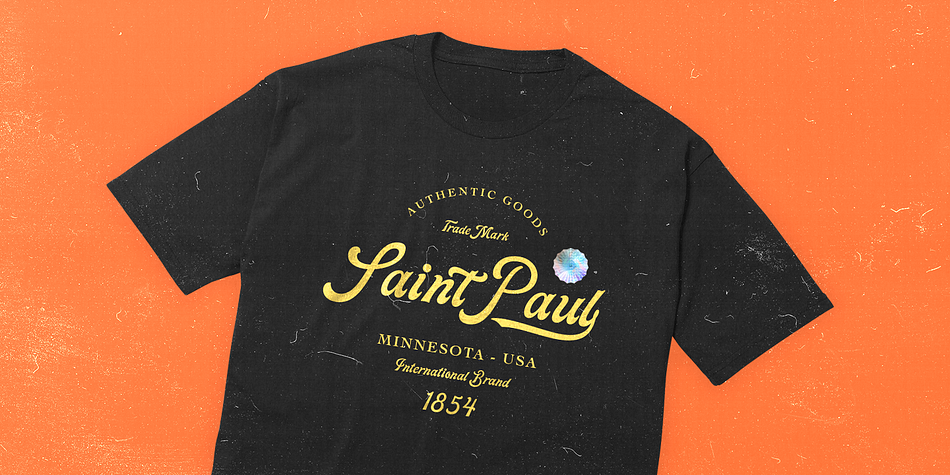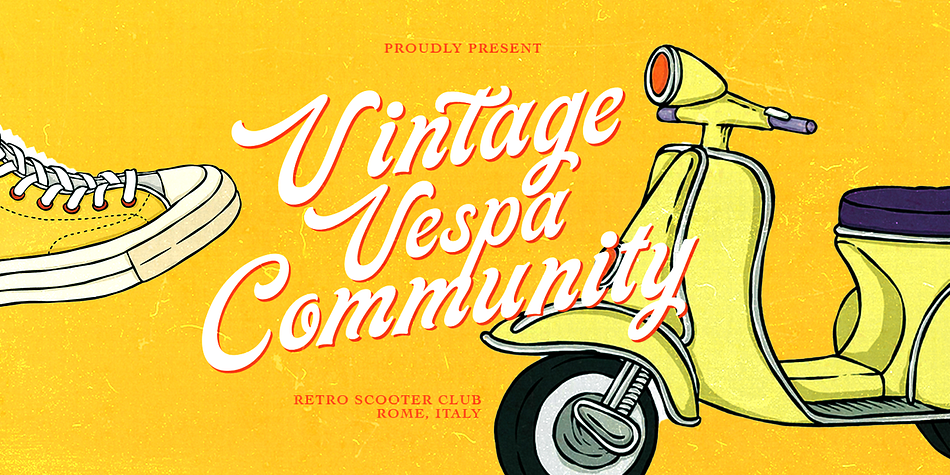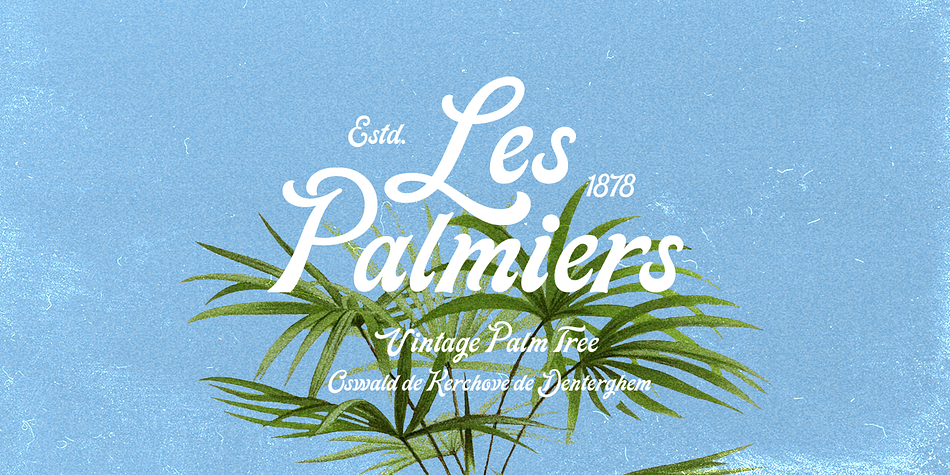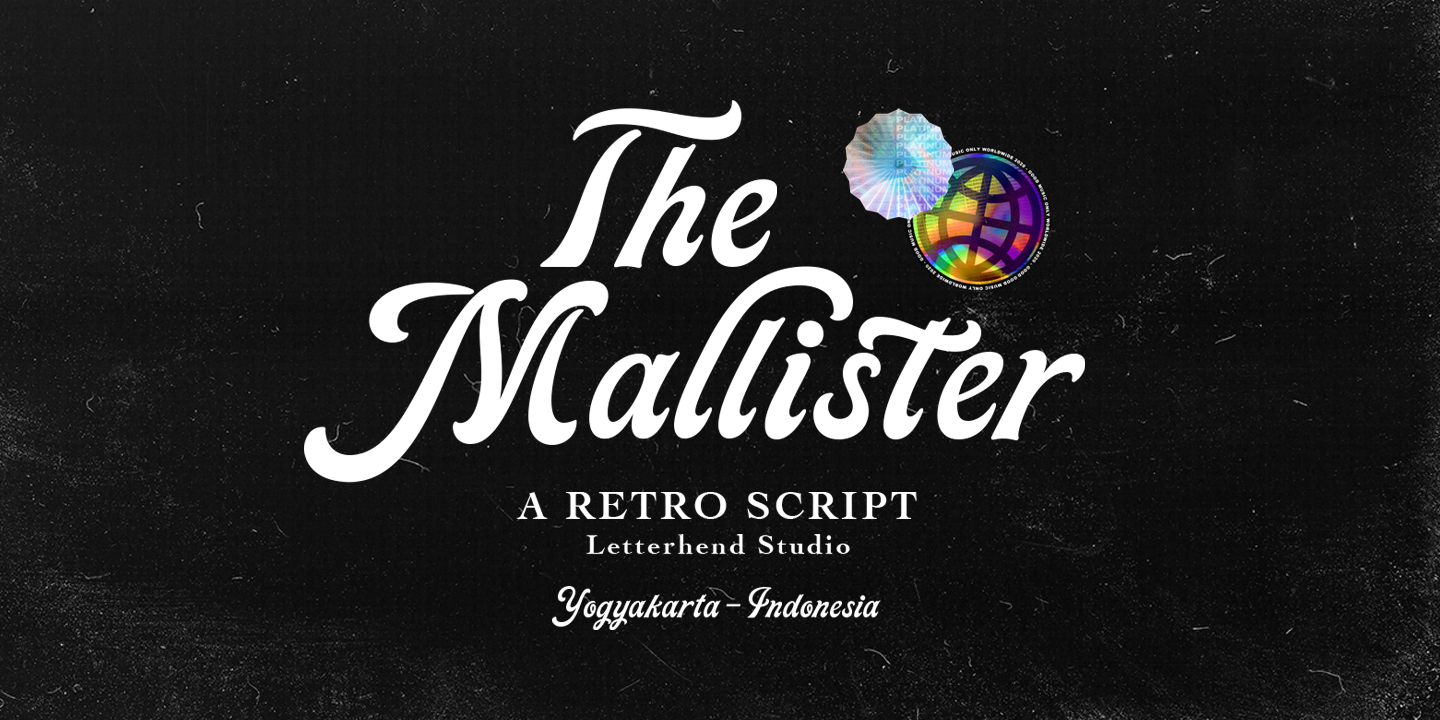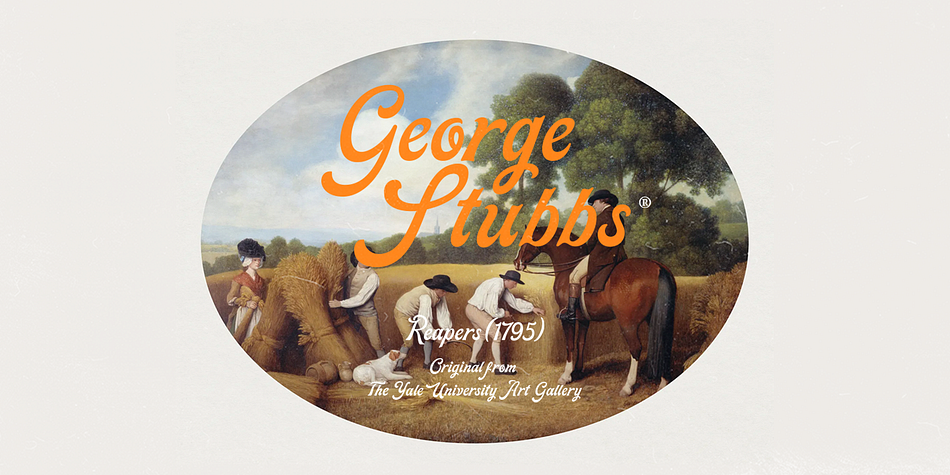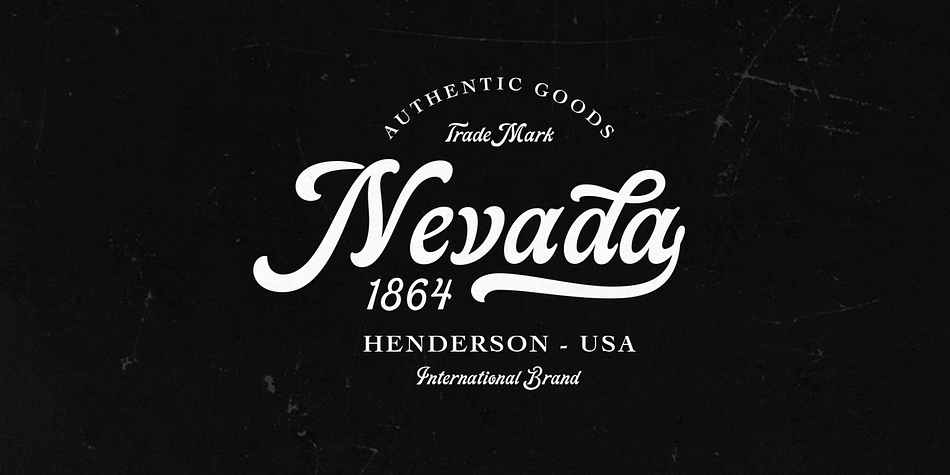
Designed by Hendry Juanda, The Mallister is a brush script, retro and stencil font family published by Letterhend Studio.
The Mallister is a script with a touch of vintage look and feel. This type of font perfectly made to be applied especially in logo, headline, signage and the other various formal forms such as invitations, labels, logos, magazines, books, greeting / wedding cards, packaging, fashion, make up, stationery, novels, labels or any type of advertising purpose.
- alternates / swashes and ligatures